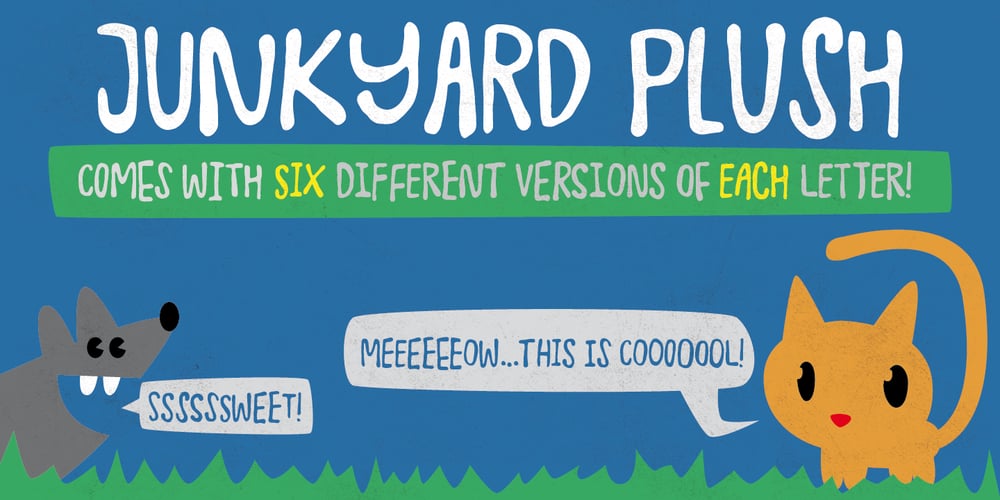
Junkyard Plush
Junkyard Plush font
Junkyard Plush Font Family was designed by Jakob Fischer and published by PizzaDude.dk. Junkyard Plush contains 1 styles and family package options. Junkyard plush has six different versions of each letter! This is called “contextual alternates” which makes your text look random and like something authentic hand-made… which of course the font is! Included are ligatures for double-letters… if the contextual alternates aren’t enough!